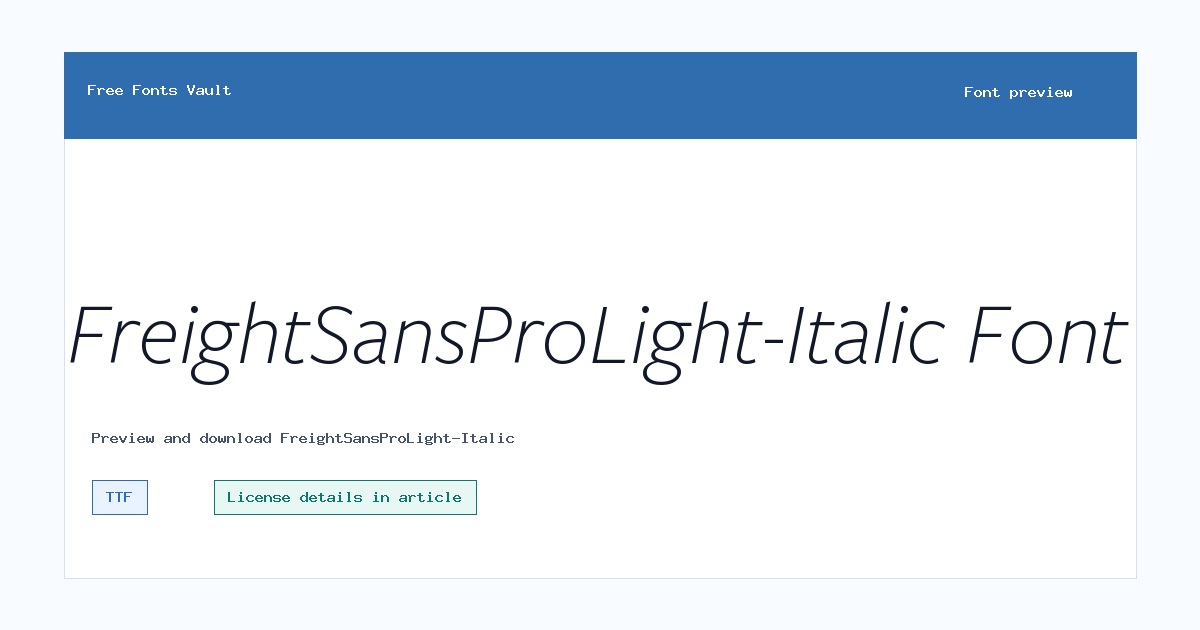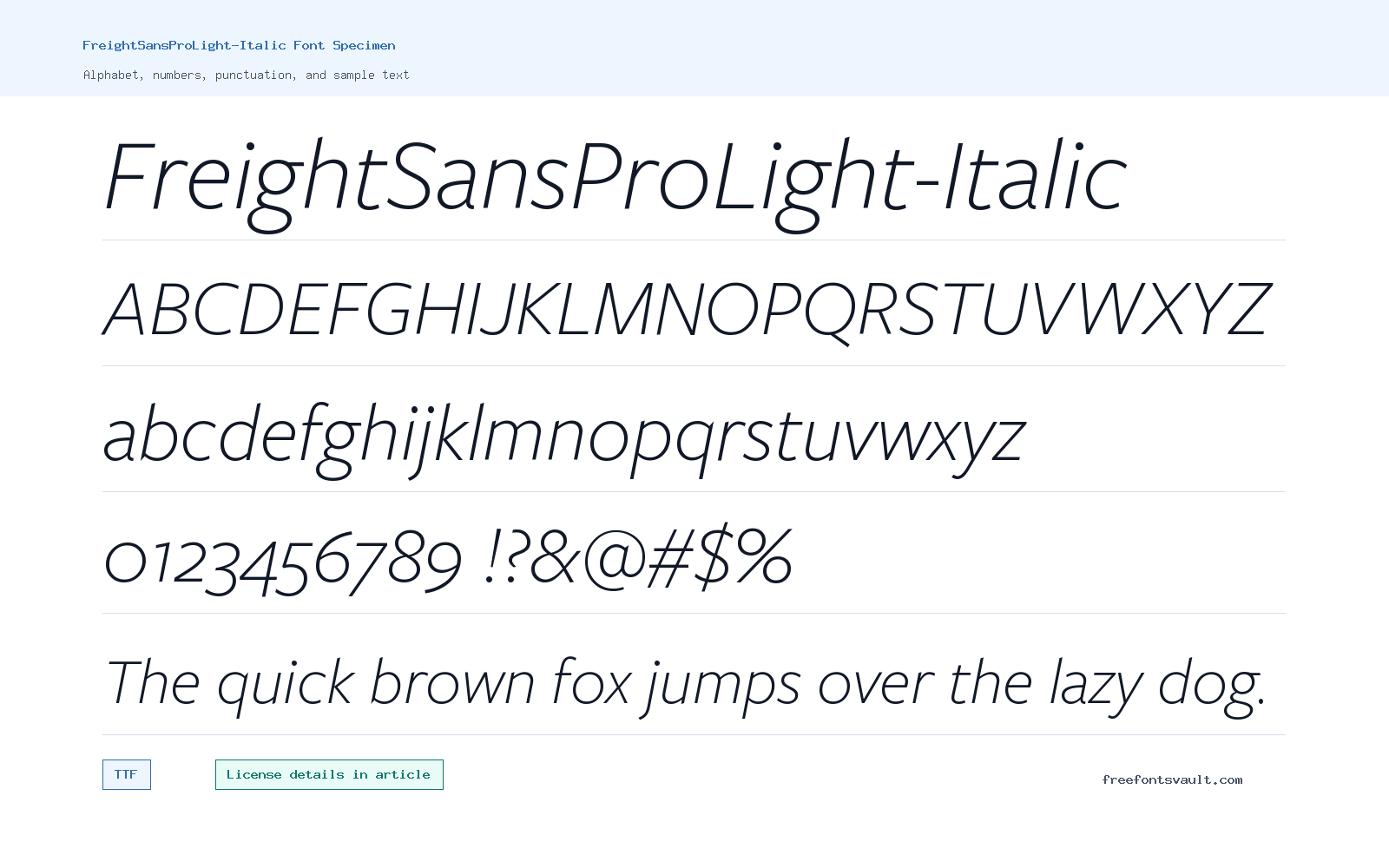
FreightSansProLight-Italic
- Designer Joshua Darden
- Foundry Joshua Darden & Phil's Fonts, Inc
FreightSansProLight-Italic font.
FreightSansProLight-Italic is a light italic sans serif style from the Freight Sans Pro family. It has a calm, editorial feel that works best when you want emphasis without heavy visual weight.
About FreightSansProLight-Italic
Freight Sans Pro is part of the wider Freight Collection by Joshua Darden. The family is known as a practical sans serif with a serious but approachable tone, and this Light Italic cut brings that character into a quieter, slanted style. It is useful for places where a roman sans feels too plain but a bold italic would be too loud: captions, pull quotes, subheads, bylines, small navigation accents, and refined text highlights.
- Light 300 weight with italic styling for soft emphasis
- Sans serif structure suited to editorial and interface accents
- Part of the Freight Sans Pro / Freight Sans family associated with The Freight Collection
- Captions, image credits, bylines, and editorial notes
- Pull quotes and short emphasis lines
- Understated headings or section labels
- Navigation accents and refined UI text
- Pairing with roman Freight Sans styles for contrast
Freight Sans is credited to designer Joshua Darden. The local font information also names Joshua Darden and Phil's Fonts, Inc. as the foundry credit.
Keep this style for short, meaningful text rather than dense body copy. It is best used as a companion accent: pair it with a regular, book, or medium sans weight for readable contrast, and test spacing if you use it in all caps or compact interface labels.
Who designed Freight Sans Pro?
Freight Sans is credited to Joshua Darden. The Freight Sans Pro family is part of The Freight Collection.
What kind of font is FreightSansProLight-Italic?
It is a light-weight italic sans serif style. It is better for subtle emphasis and short text than for heavy headlines or long paragraphs.
Where does this style work best?
Use it for captions, bylines, pull quotes, editorial accents, navigation labels, and other short pieces of text that need a refined italic tone.